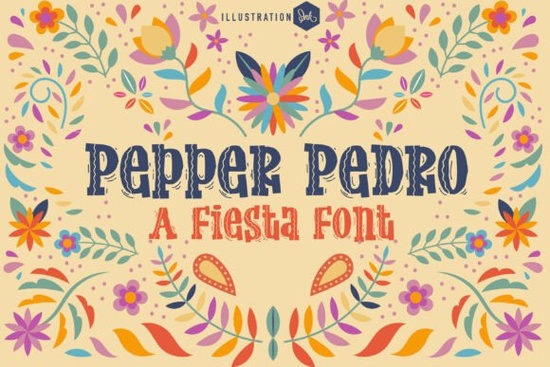
If you're looking for a bold, expressive font that brings energy and personality to your projects, Pepper Pedro Font stands out as a strong choice. This display typeface isn’t just eye-catching it’s full of character, inspired by the vibrant spirit of folk art and festive celebrations. Whether you’re designing a menu for a small Mexican eatery or creating social media graphics for a local event, Pepper Pedro adds a lively touch that feels authentic and handmade.
What makes Pepper Pedro Font unique?
Pepper Pedro combines thick, hand-drawn letterforms with dynamic vertical stripes and uneven, organic edges. These details give it a sense of movement and warmth that feels both traditional and fresh. The font doesn’t follow rigid symmetry its irregular shapes mimic real brushstrokes and artisan craftsmanship, making it perfect for designs that value authenticity over perfection.
The heavy weight and playful rhythm of the letters make it ideal for headlines, posters, packaging, and branding where impact matters. It’s especially effective when paired with botanical elements, colorful illustrations, or earthy textures common in modern “bold-and-botanical” design trends.
Who uses Pepper Pedro Font?
Independent restaurant owners, craft food brands, boutique label designers, and creative hobbyists often turn to this font for its cultural flair and visual punch. If you’re launching a hot sauce line, promoting a festival, or building a brand identity rooted in community and celebration, Pepper Pedro helps tell that story clearly and memorably.
- Menu designs for Mexican-inspired eateries
- Labels for artisanal sauces and condiments
- Festive event posters and flyers
- Social media banners with bold visuals
- Print-on-demand merchandise like T-shirts and tote bags
You’ll notice that the font works well in both digital and print formats, maintaining clarity even at smaller sizes when used strategically. Its standout features like the chunky vertical lines and uneven edges add texture and depth without overwhelming the message.
How does it compare to other fonts in the collection?
If you’ve explored similar styles, you might have come across fonts like Chunky Summer, Martin, Varsity Universe, or Military Steel. Each has its own vibe: Chunky Summer leans into beachy, tropical energy; Martin offers a clean yet rugged feel; Varsity Universe brings retro sports flair; Military Steel is sharp and industrial.
Pepper Pedro sits somewhere between folk tradition and modern festivity. It’s less structured than some alternatives but more intentional than random scribbles. It’s not meant to be neutral it’s meant to stand out, celebrate, and invite attention.
Where can you use Pepper Pedro Font?
Try it on a flyer for a neighborhood taco night, a limited-edition bottle label for a spicy salsa, or a motivational quote post for Instagram. Because of its strong presence, it works best as a headline font rather than body text. Pair it with simpler, readable fonts for balance like a clean sans-serif for descriptions or ingredient lists.
Final thoughts: Is Pepper Pedro right for your project?
If you want a font that feels alive, culturally rich, and full of joy, then yes this one fits. It’s not a generic tool. It’s a statement piece that supports storytelling through design. Just remember: use it with intention. Let its boldness lead, but keep your message clear.
Quick tip: When testing Pepper Pedro, try different color combinations bright reds, deep greens, or warm yellows bring out its festive nature. Avoid overly busy backgrounds so the font remains the focus.